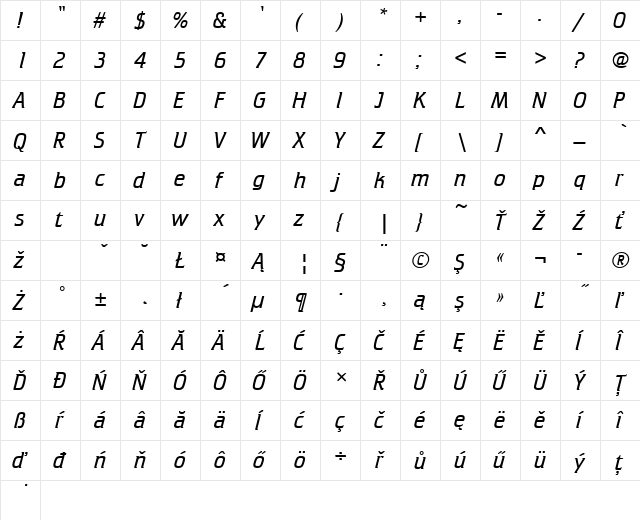
CrilleeTEELig Regular Font Preview
CrilleeTEELig Regular
Design Context for CrilleeTEELig Typeface
CrilleeTEELig is a composed and adaptable typeface that performs quietly and consistently across a wide range of design contexts.